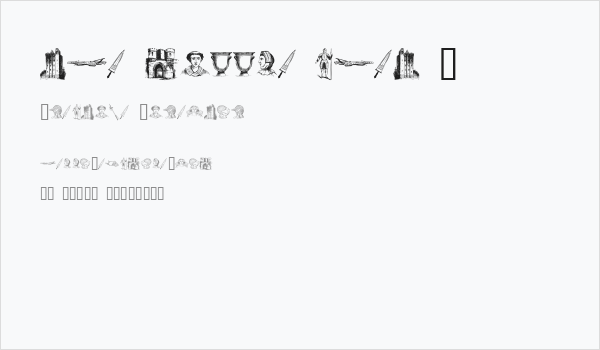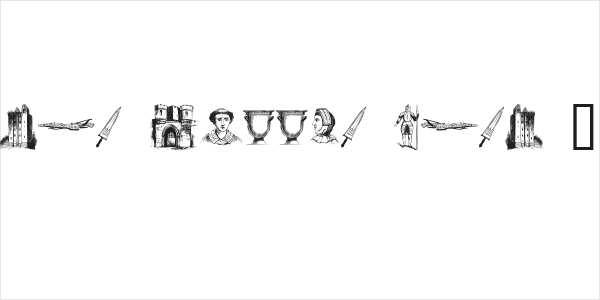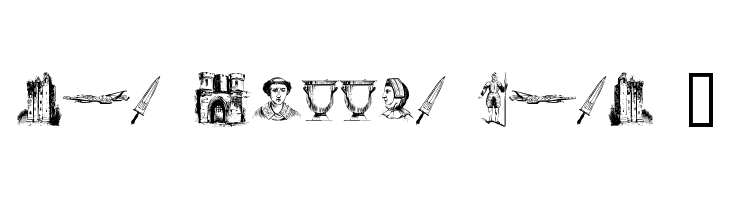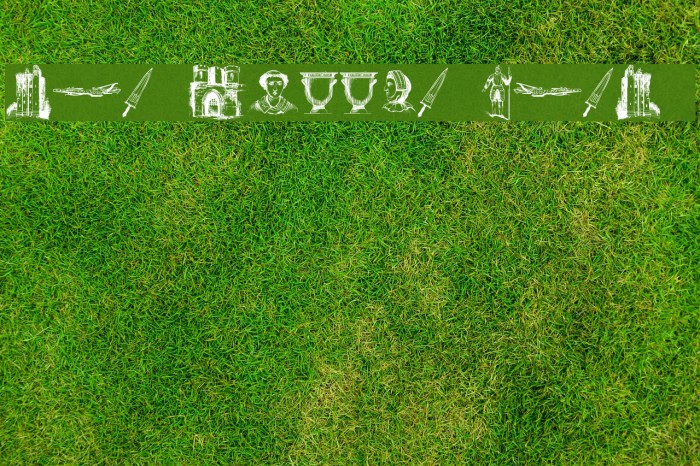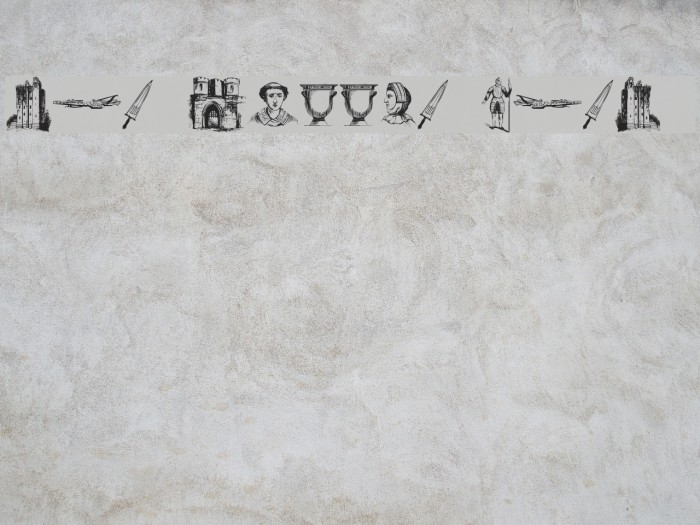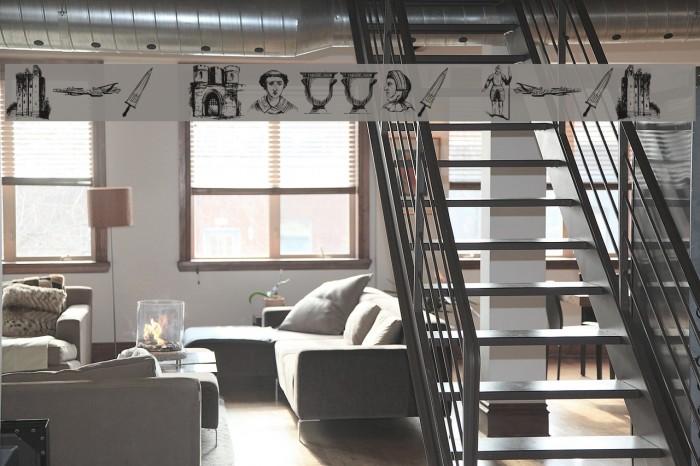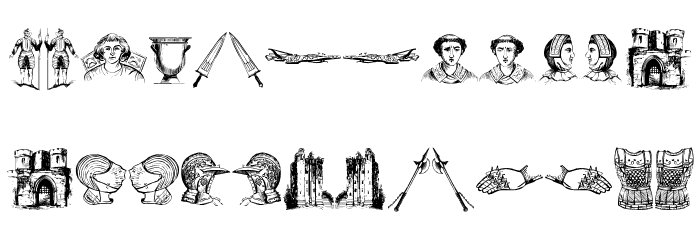
the middle ages I Font
the middle ages I Description
A decorative display set featuring detailed medieval-themed illustrations such as knights, castles, armor, and period objects in place of standard alphanumeric characters. Each symbol is rendered in a hand-drawn, engraved style reminiscent of historical manuscripts and woodcuts.
| Overall Style | Vintage, Decorative |
| Use Case | Logos, Headlines, Themed graphics, Decorative elements |
| Proposed Projects | Historical posters, themed invitations, educational materials, book covers, event branding. |